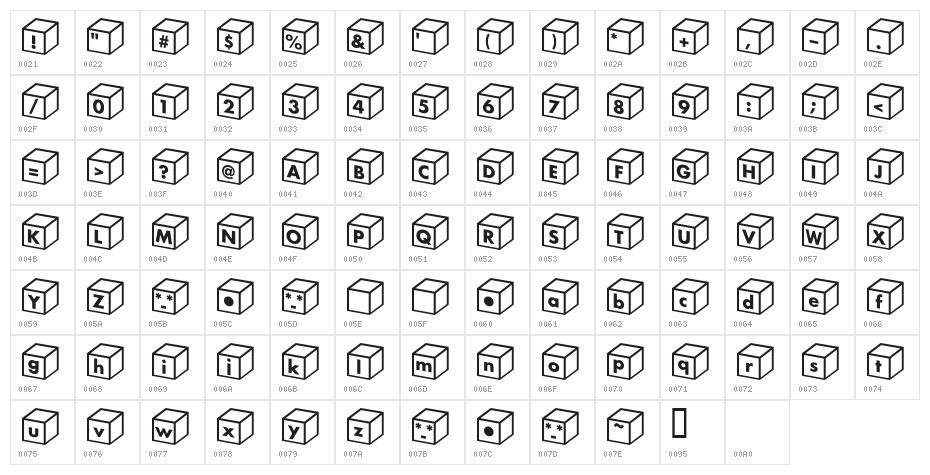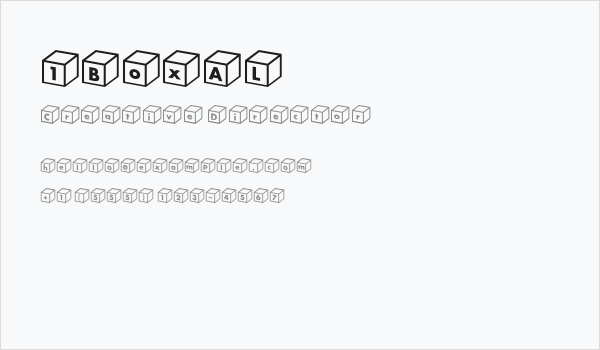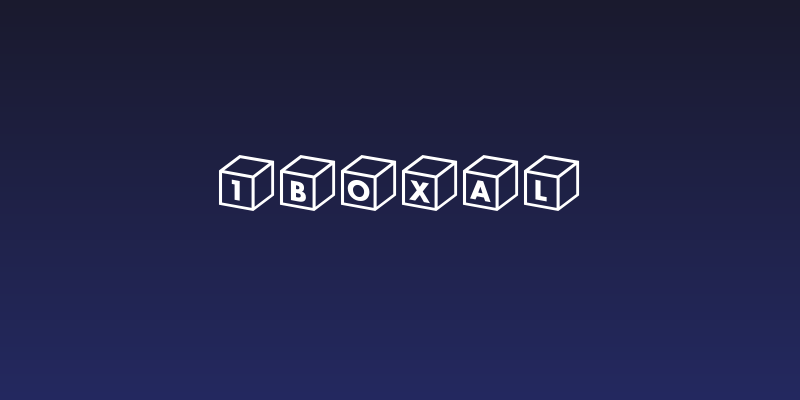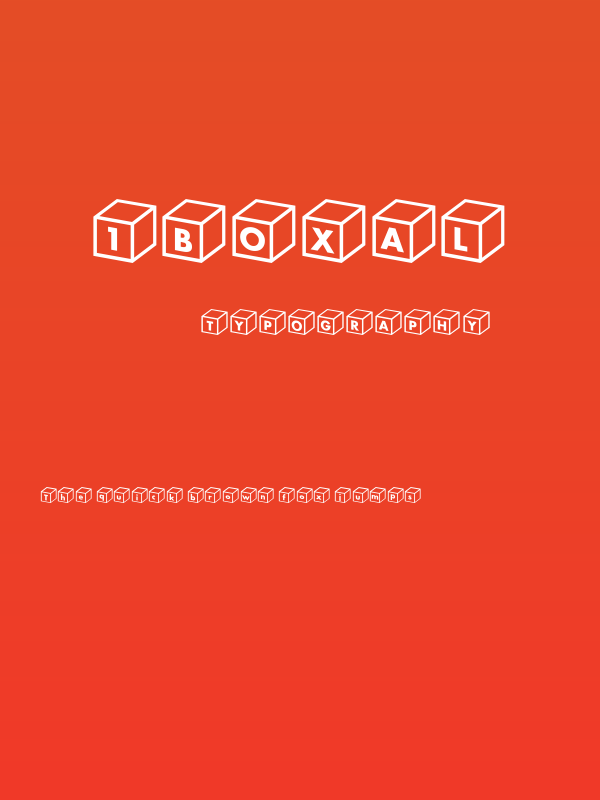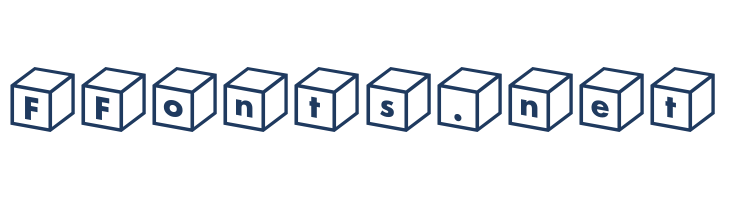
1BoxAL Font
1BoxAL Description
This font features a unique 3D box design where each character is encapsulated within a cube, giving it a playful and eye-catching appearance. The letters and numbers are bold and clear, making them stand out against the cube outlines. The geometric style is consistent across uppercase, lowercase, numbers, and special characters, providing a cohesive look. This font is ideal for projects that require a fun and modern aesthetic, such as children's books, games, or creative advertisements. The characters are evenly spaced within their cubes, ensuring readability while maintaining the decorative style.
| Proposed Projects | Ideal for children's books, games, creative advertisements, and playful branding. |